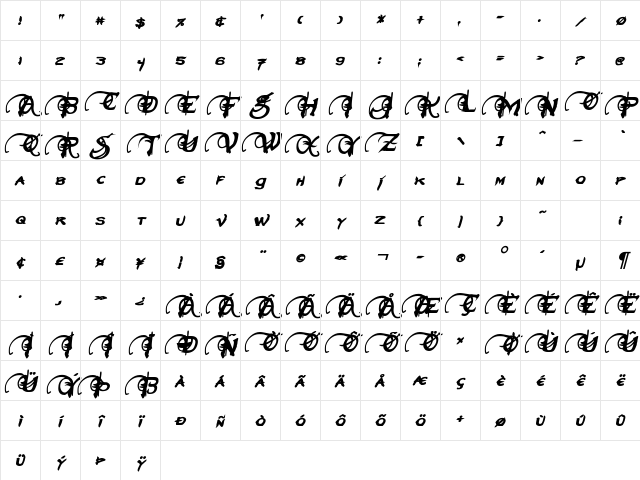
Neverwinter Bold Italic Free Font
Neverwinter Bold Italic
Foundry: Neale Davidson
Designer: Neale Davidson
Design Context for Neverwinter
Neverwinter is a composed and adaptable typeface that performs quietly and consistently across a wide range of design contexts. The slanted form adds forward momentum and visual energy. Its bold stroke weight gives it real presence on the page.